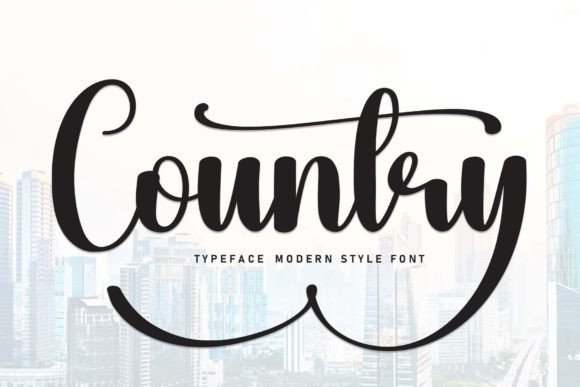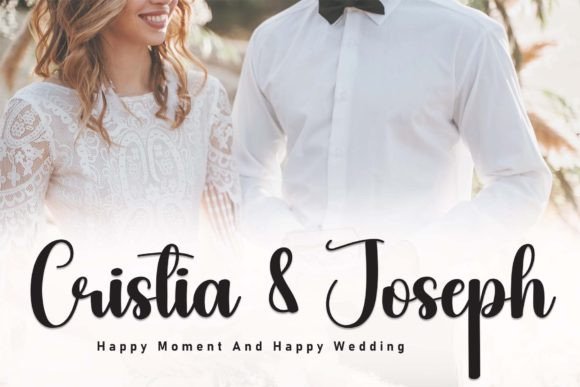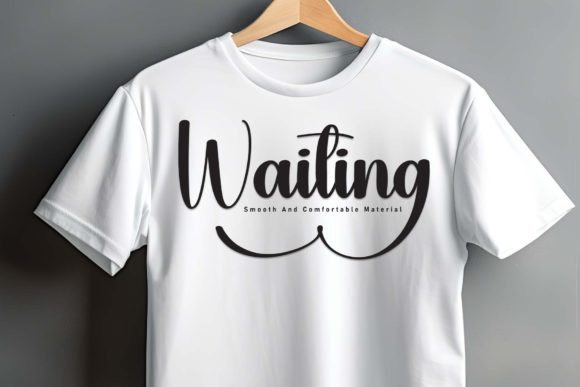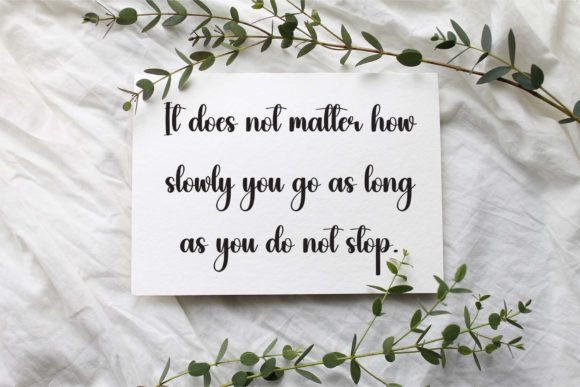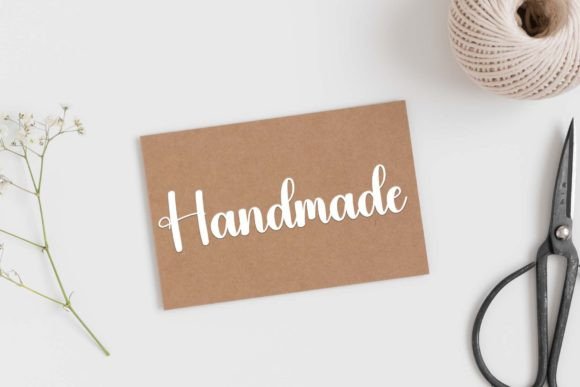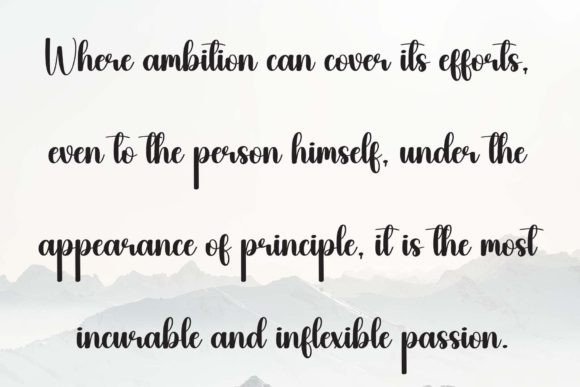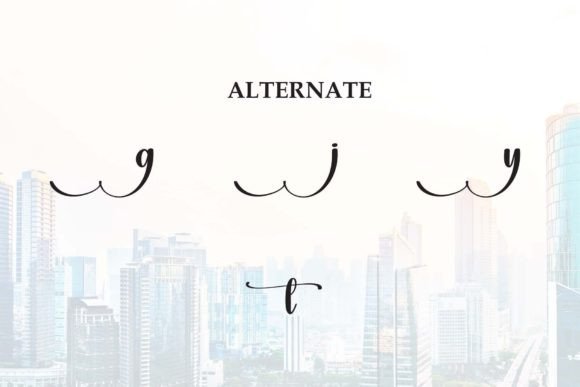
Discover the Timeless Charm of Country Font
There’s something special about the first time you see a beautifully crafted logo or branding that makes you stop and take notice. Maybe it’s the way the letters seem to dance across the page, or the way the words seem to come alive with a personality all their own. Whatever it is, it’s a moment that designers strive for, and one that Country Font can help make a reality.
Country Font is a lovely and timeless handwritten font that’s perfect for creating eye-catching logos, branding, and quotes. Every letter has a unique and beautiful touch, which will make your design come alive and leave a lasting impression on your audience.
For designers, Country Font is a valuable tool that can help take their designs to the next level. Whether you’re working on a new project or looking to refresh your existing brand, Country Font is a great choice that’s sure to impress.
Country Font Key Features
- Font Family: Country Font is a unique, hand-drawn font family designed to evoke a rustic, countryside feel. It includes a range of weights and styles to suit various design needs.
- Character Set: The font includes a wide range of characters, including uppercase and lowercase letters, numbers, punctuation marks, and special characters, making it suitable for both body text and headings.
- Size: Country Font is available in 6 different weights, ranging from Light to Black, allowing designers to choose the perfect weight for their design.
- Resolution: Country Font is designed to be scalable, making it suitable for use at various resolutions, including print and digital applications.
- Unique Characteristics: Country Font features a distinctive, hand-drawn feel, with subtle imperfections and irregularities that give it a charming, organic look.
Country Font Review
As a designer, I was excited to dive into the world of “Country Font”. While it has its charm, I found both delightful and frustrating aspects to this font.
- Unique character set: The font’s distinct characters and ornaments add a whimsical touch to any design.
- Flexibility: Country Font is available in various weights and styles, making it suitable for a wide range of applications.
- Atmosphere: The font effectively evokes a rustic, countryside feel that’s perfect for branding and advertising.
- Readability: In certain weights and sizes, the font’s irregularities can make it difficult to read.
- Limited support: Country Font may not be supported in all operating systems or browsers, which can cause display issues.
- Lack of consistency: The font’s uneven stroke widths and varying character shapes can make it look inconsistent in certain contexts.
Overall, Country Font is a quirky and charming addition to any designer’s toolkit. While it excels in certain areas, its limitations should be carefully considered before using it in critical applications.
Country Font is commonly used for:
- Vintage-inspired designs
- Rustic or country-themed graphics
- Signs and banners
- Photography captions and descriptions
Tips for Getting the Most Out of Country Font
To get the most out of Country Font, try pairing it with distressed textures, vintage-inspired graphics, and earthy colors. Experiment with different font sizes, colors, and styles to create a unique and eye-catching design.